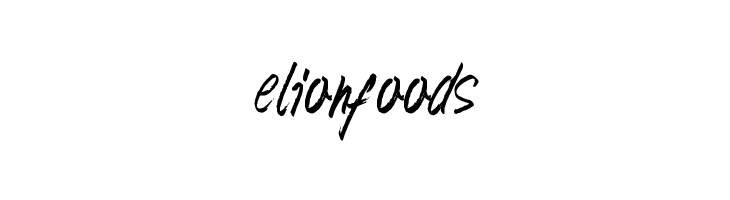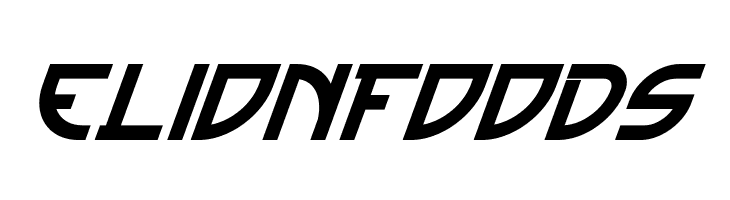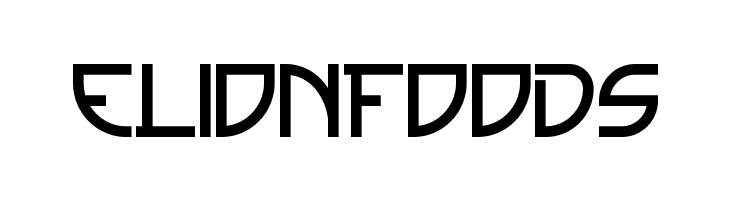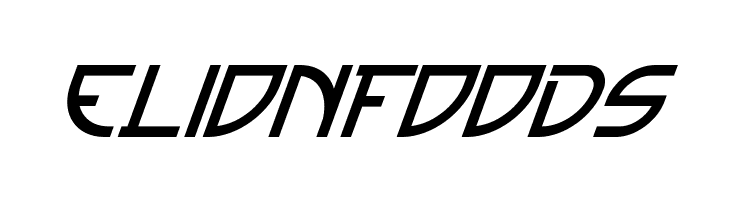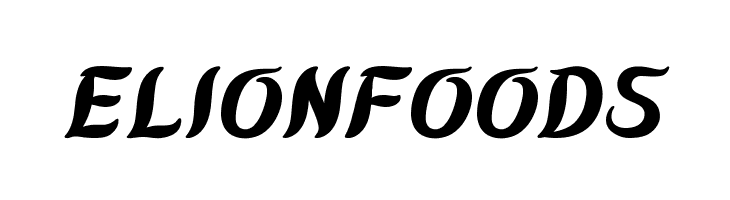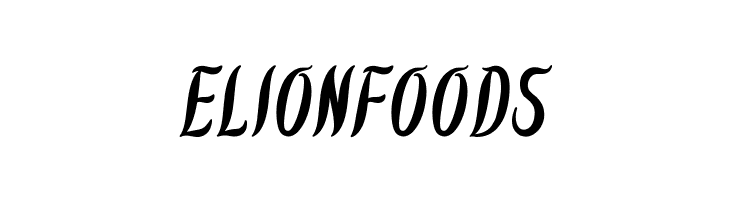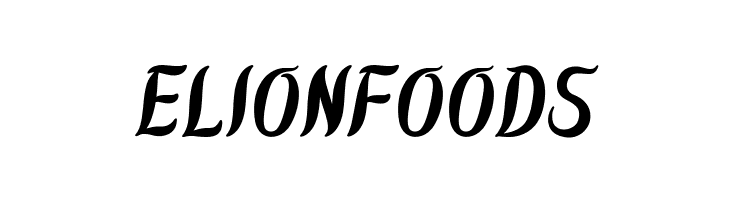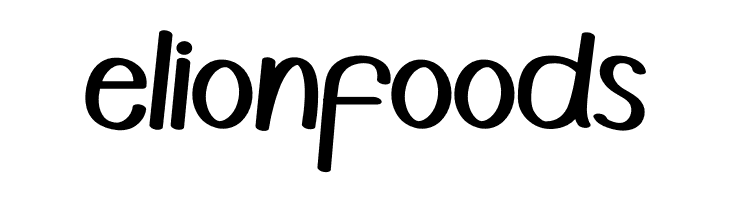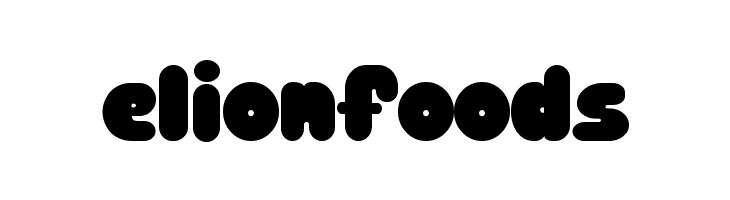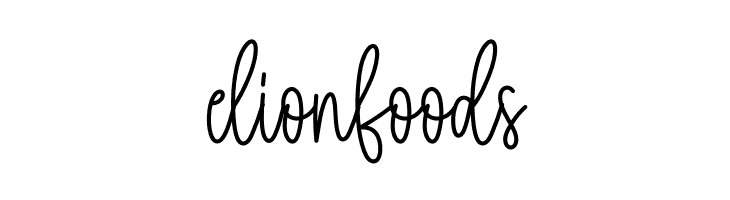
A modern, geometric font with sharp edges and smooth curves, ideal for bold headlines.
A bold, italicized font with a modern, angular design.
A dynamic italic font with sharp, angular lines and a modern aesthetic.
A playful, bold font with rounded edges and a bubbly appearance.
Playful handwritten font with a whimsical style.
A bold, italicized, and condensed decorative font with dynamic strokes.
A bold, dynamic italic font with expressive, flowing curves.
A dynamic, flowing script font with elegant, cursive letterforms and a consistent italic slant.
A dynamic, brush-style font with bold, expressive strokes.
A playful, handwritten script font with rounded, dynamic characters.